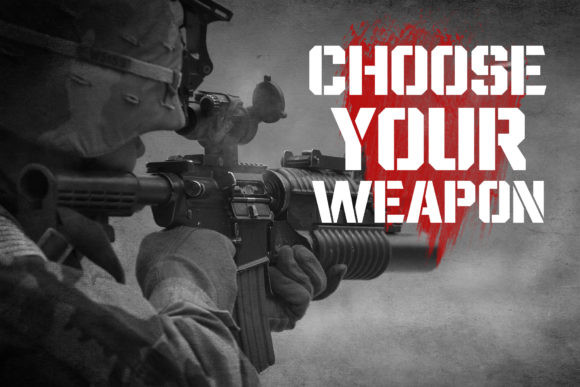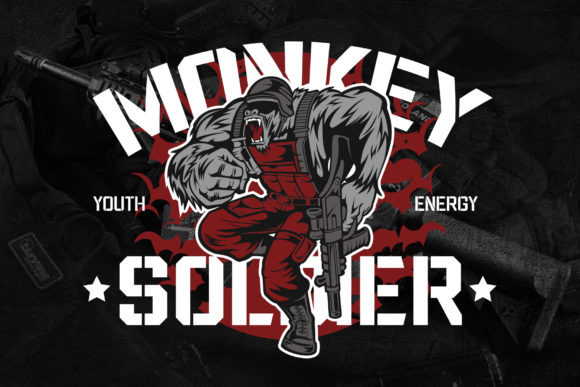
Wargate Font
Wargate is a bold and chunky display font, inspired by the military design and urban graffiti. If you want your projects to stand out, Wargate is the best choice!